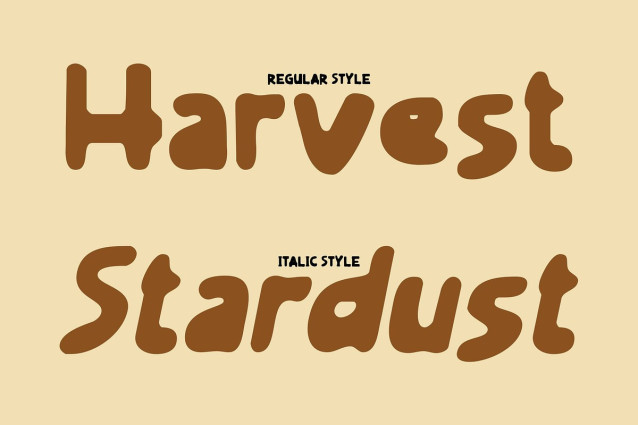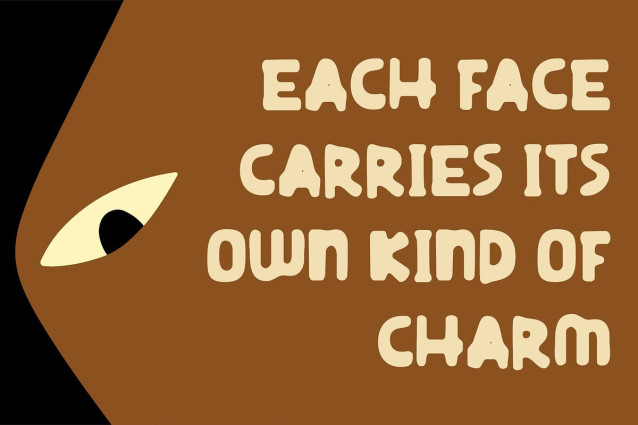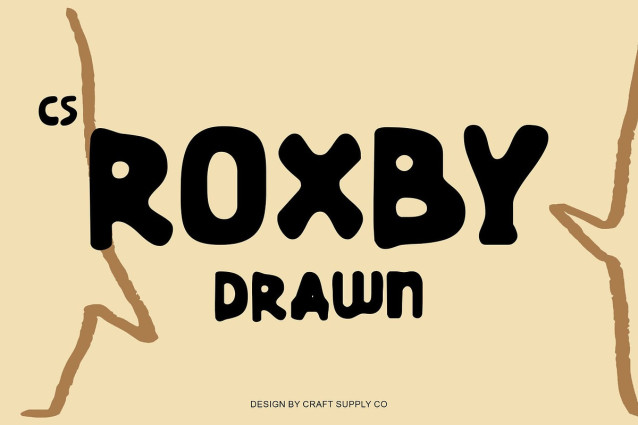
CS Roxby Drawn Font
CS Roxby Drawn Font – This is a playful cursive display font that captures the charm of handwriting with a fresh, modern twist. Its flowing shapes and lively forms radiate personality, making it perfect for designers who want to bring warmth and approachability into their work.
Drawn Texture for a Fun, Friendly Look What sets this font apart is its drawn effect, which gives the letters a funny and friendly vibe. The handcrafted details create a natural, expressive quality, softening the structure of cursive into something more energetic and approachable.
Perfect for Branding and Social Media From lifestyle branding to social media posts and creative graphics, this font delivers a youthful and relaxed spirit. Its casual tone makes it ideal for connecting with audiences in playful, lighthearted ways while still maintaining style.
Youthful Charm with Versatile Appeal This font balances its carefree aesthetic with modern usability. Whether applied to logos, posters, or digital content, it injects positivity and charm, ensuring designs stand out with a cheerful, human touch.